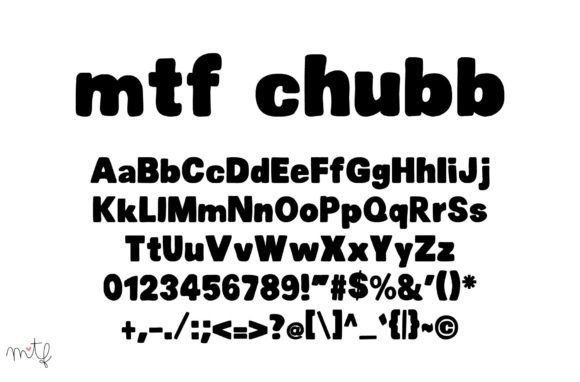
Introducing Chubb Font, the delightfully plump display font that's packed with playful charm! This captivating creation by Miss Tiina is a visual feast, designed to add a touch of whimsy to your creative projects. Its unique curves and charming letterforms dance across the page, inviting readers to embark on a journey of imagination.
Unlock a world of possibilities with Chubb Font. Picture your designs bursting with personality, from vibrant magazine layouts to enchanting children's storybooks. Let your imagination run wild as you create eye-catching stationery, packaging, and name tags that leave a lasting impression. Chubb Font will transform your designs into works of art, adding a dash of boldness and a heap of cuteness to every project.
Jump into a world of creativity with Chubb Font! Its versatility knows no bounds. Whether you're a seasoned designer or just starting out, Chubb Font is your go-to font for adding a touch of magic to your work. Embrace its playful spirit and let your designs flourish with personality. Download Chubb Font today and open the door to a world of endless creative possibilities!